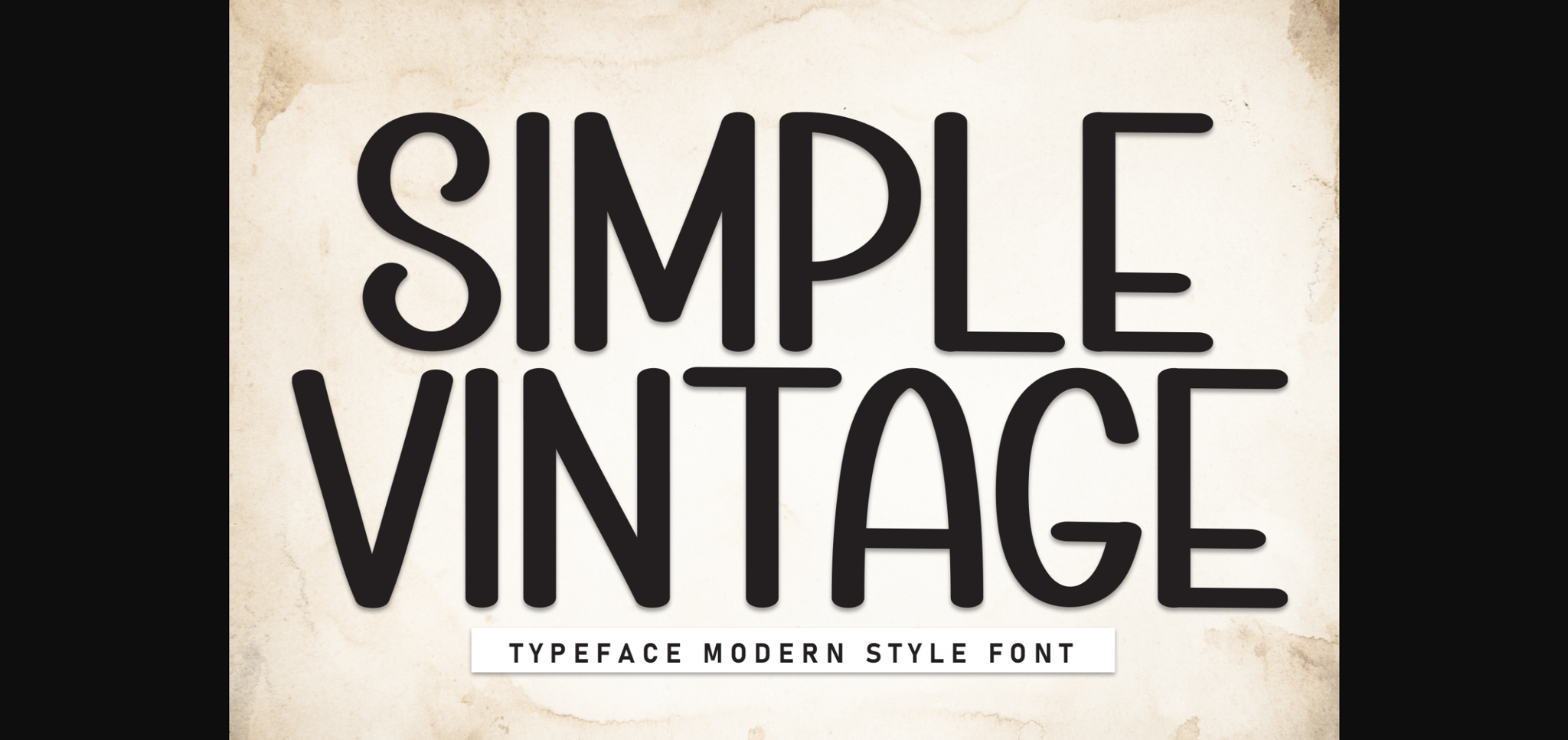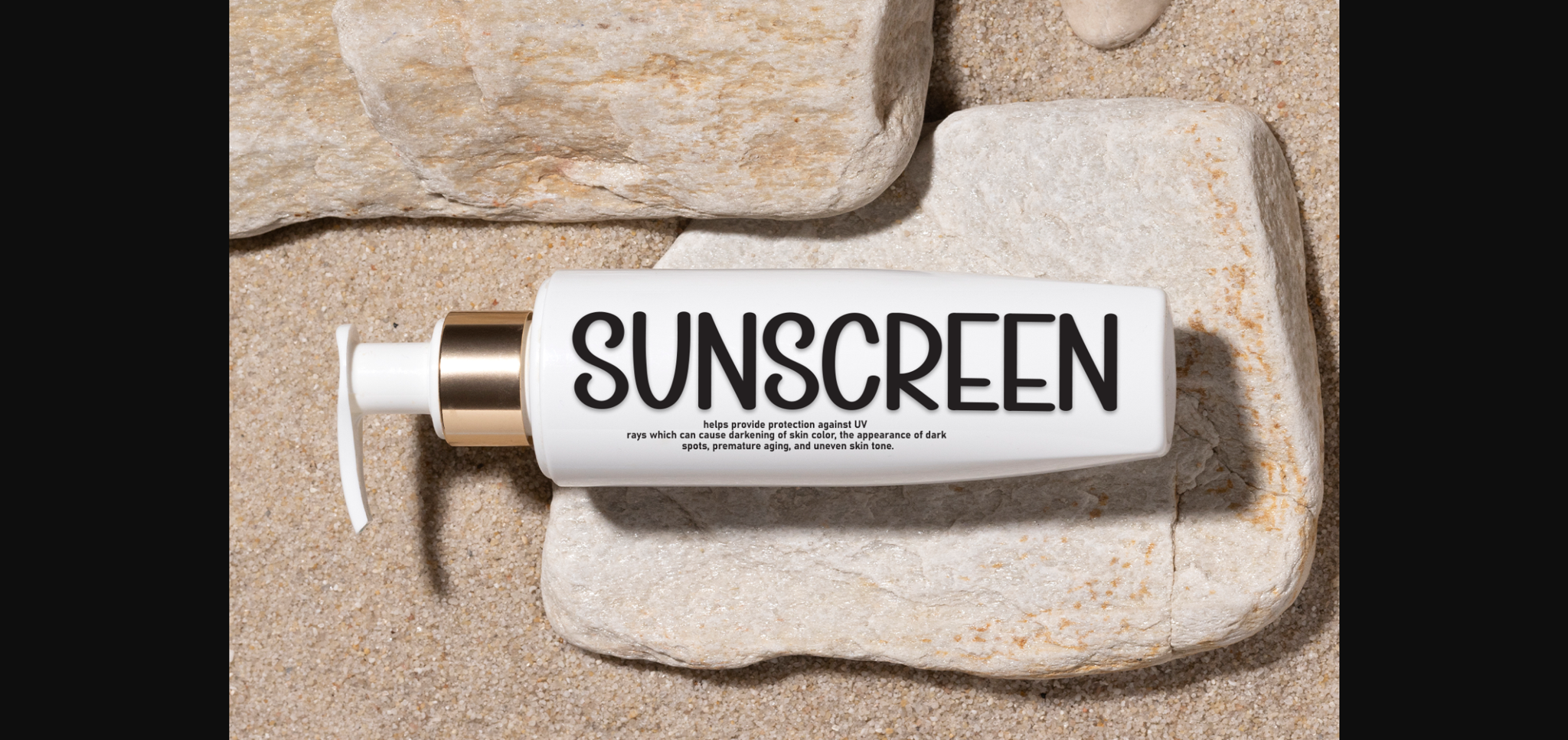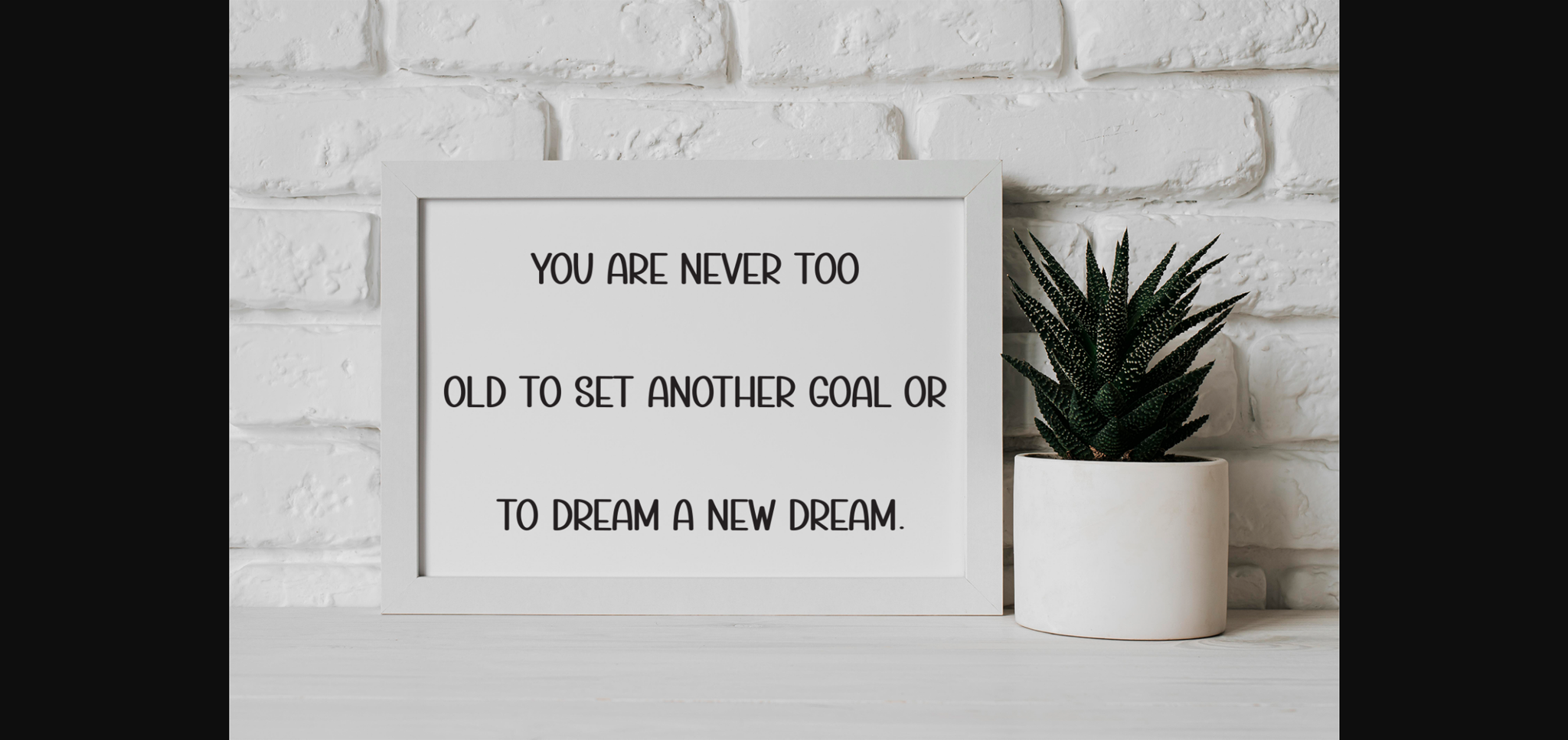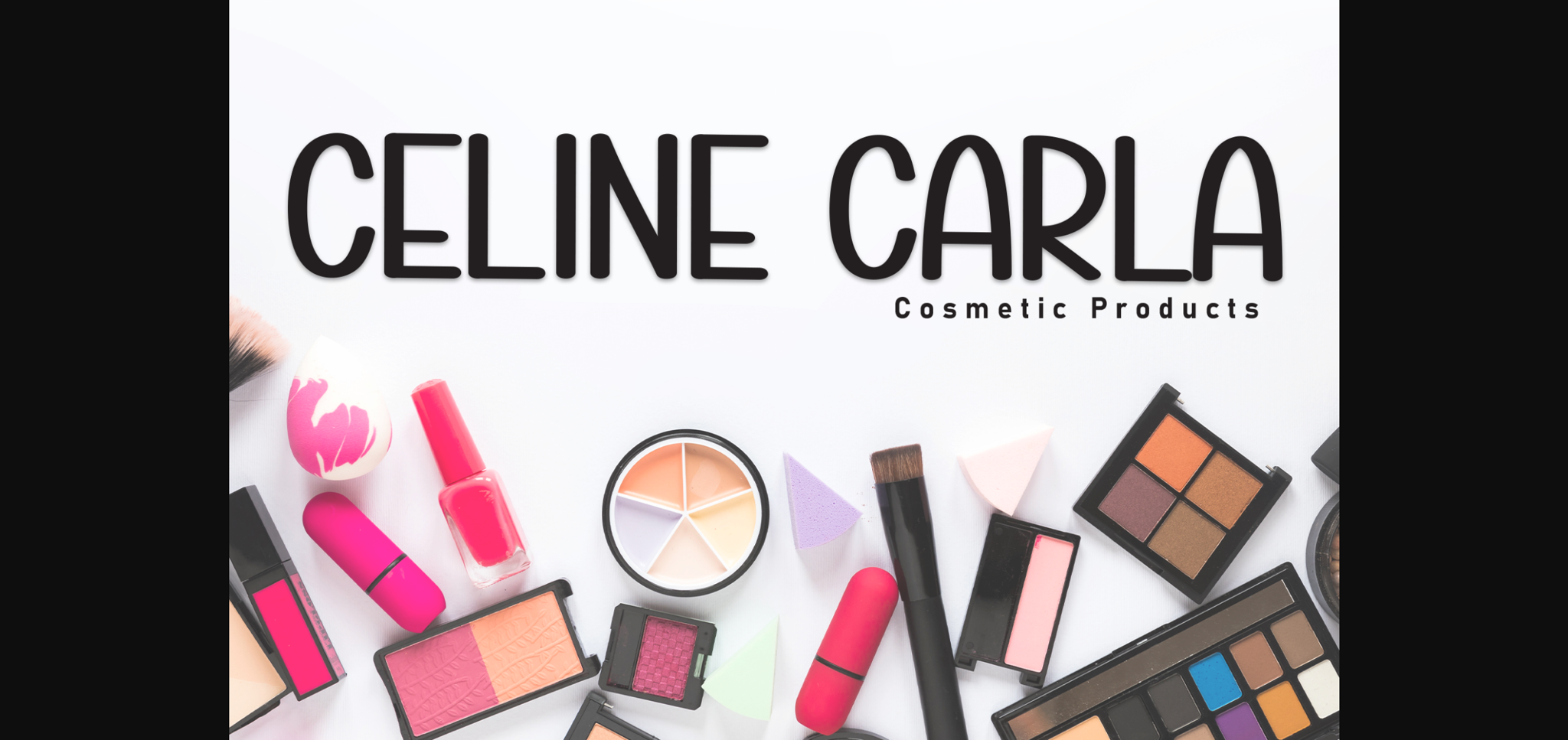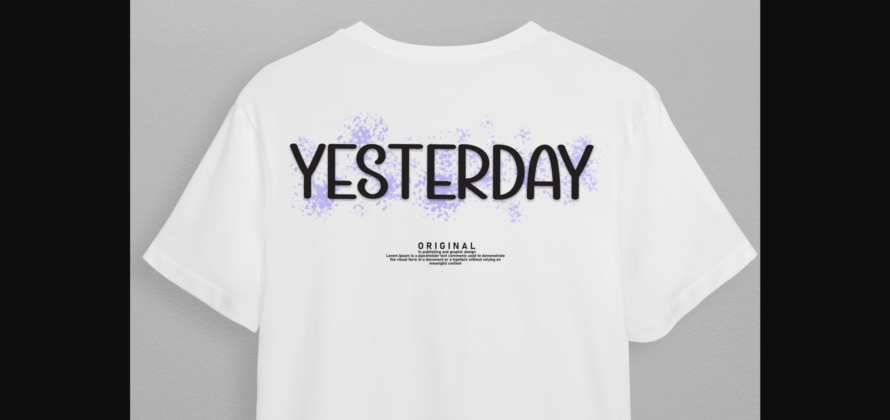
Simple Vintage Font
About Simple Vintage Font
Simple Vintage is a cool and modern sans-serif font. Add it to your creative projects and enjoy the results!